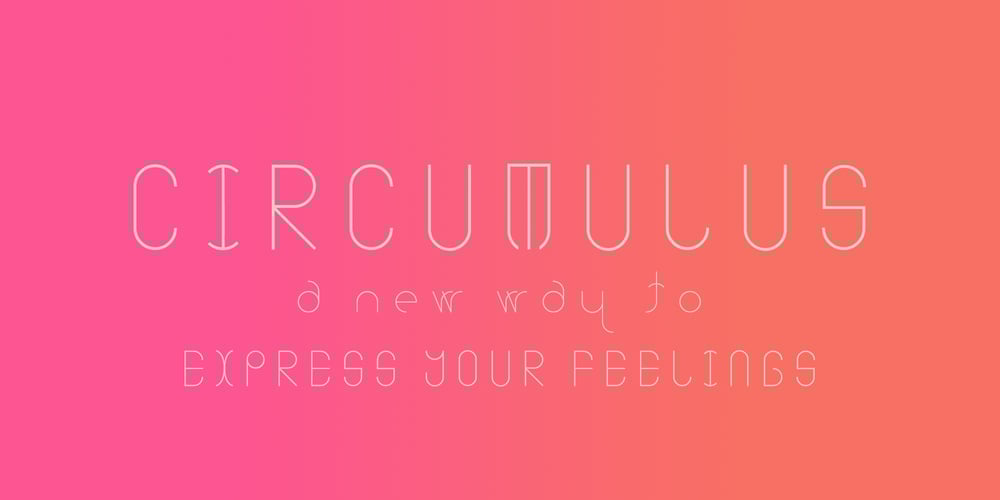
Circumulus Font Family was designed by Hakan Polat and published by HakanPolatovic. Circumulus contains 1 styles and family package options. CIRCUMULUS is a font that designed based on a single circleSOFT AND CURVYCircumulus has soft appearance and curvy lines, which gives it’s nice lookGEOMETRICALLY RATIONALEvery glyph has a ratio to one another, which makes this font can be used in any kind of rational system like repeating patterns